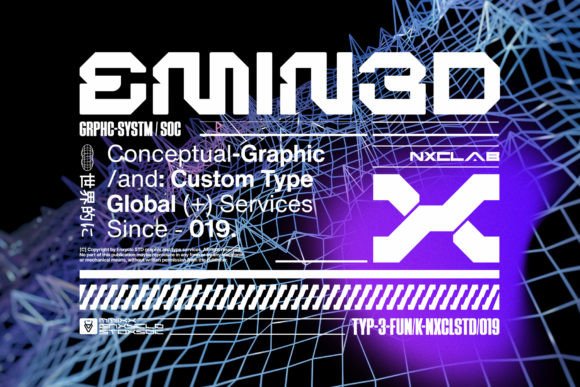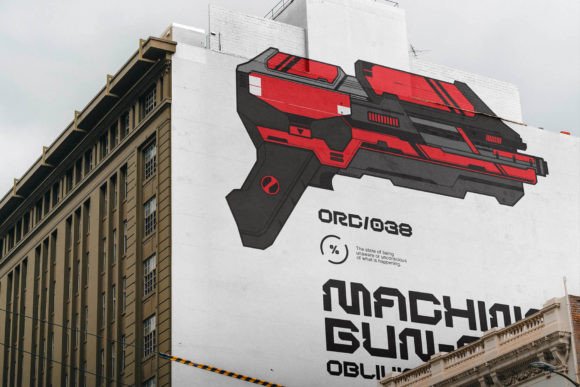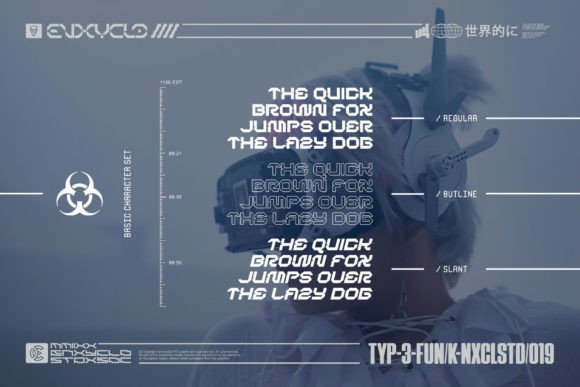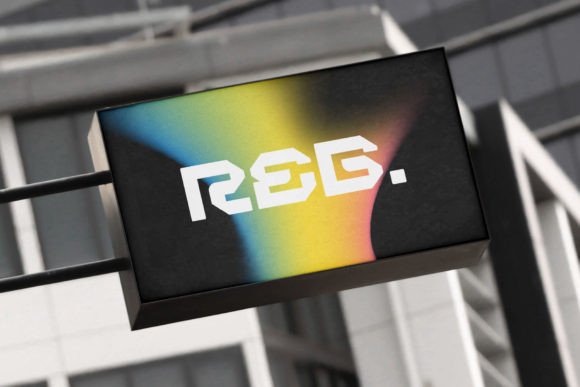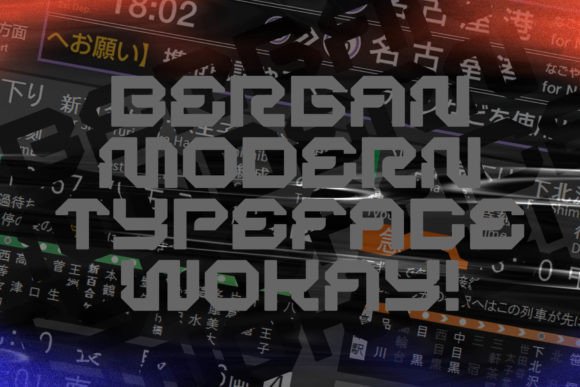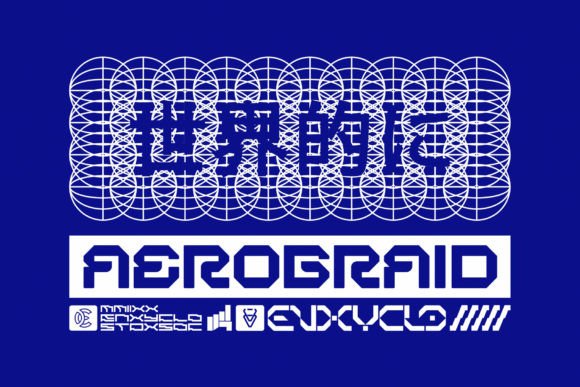
Introduction to Bergan Font
Bergan is a futuristic display font.
| 👤 Author | Enxyclo |
The design of the typeface will make your project more powerful and inspiring It is perfect for headlines, billboards, magazines, websites, titles, posters, branding, thumbnail, t-shirt design, streetwear design, creative logos, or any project that needs futuristic touch.
Key Features of Bergan Font